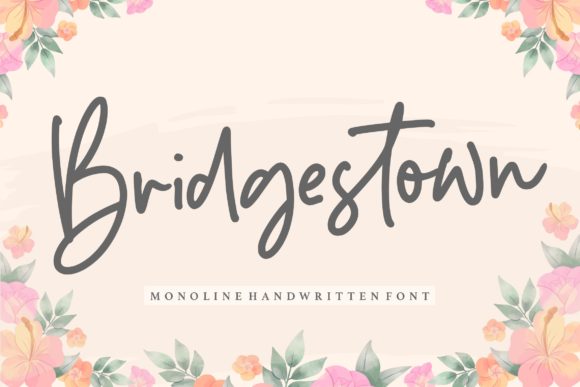
Unleash your creativity and embark on a typographic journey with Bridgestown Font, the ultimate script font designed to captivate and inspire. Immerse yourself in the world of UI/UX design, where Bridgestown shines as a beacon of innovation and charm.
Experience the allure of handwritten elegance, crafted with meticulous care to evoke a sense of warmth and authenticity. Bridgestown is not just a font; it's an artistic expression that transforms your designs into captivating masterpieces. Let your imagination soar as you explore the endless possibilities that Bridgestown holds.
With its playful and endearing style, Bridgestown adds a touch of whimsy and delight to any project. Its enchanting curves and lively strokes breathe life into your designs, creating a visual symphony that resonates with viewers.
Bridgestown is a versatile chameleon, effortlessly adapting to a myriad of creative endeavors. Whether you're crafting logos that exude personality, designing wedding invitations that radiate romance, or creating social media posts that demand attention, Bridgestown rises to the occasion with grace and flair.
Join the ranks of discerning designers who have discovered the magic of Bridgestown. Let your designs blossom with creativity and captivate your audience with every stroke. Embrace the power of Bridgestown and unlock the full potential of your artistic vision.